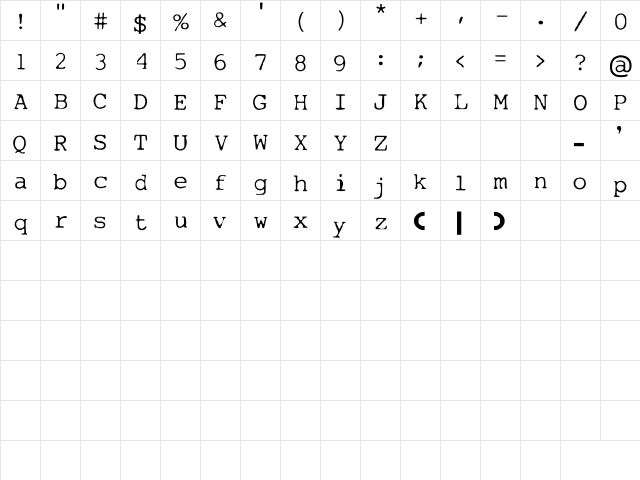
My type of font Regular Font Preview
My type of font Regular
My type of font Regular Font Details
Design Context for My type of font Typeface
My type of font is a composed and adaptable typeface that performs quietly and consistently across a wide range of design contexts.